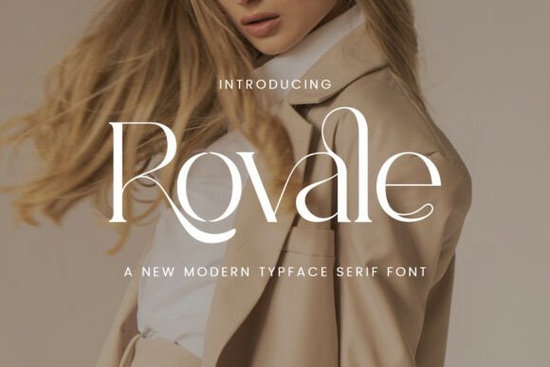
Typography often determines whether a project feels accessible or exclusive. Designers frequently seek a typeface that balances readability with an air of authority. In the current landscape of digital and print design, there is a distinct preference for letterforms that carry history but speak to today's standards. A great example of this intersection is Rovale Font. This modern serif combines elegant curves with refined contrast, making it ideal for visuals that need a high-end editorial mood.
Why Choose a Modern Serif for Your Brand?
Selecting the right typeface goes beyond mere appearance; it sets the tone for how customers perceive a business. A modern serif bridges the gap between traditional book typography and contemporary fashion-forward aesthetics. Unlike purely display fonts, Rovale maintains legibility even at smaller sizes, which is crucial for detailed work like website captions or price tags. The graceful ligatures contribute to a premium feel without sacrificing clarity.
When working on luxury marketing assets, consistency is key. Because this font marries classic beauty with a fresh perspective, it avoids looking dated too quickly. This longevity is valuable for small businesses aiming to build a long-term identity. While some scripts offer charm, they lack the stability required for strong corporate messaging. Serifs provide that backbone, grounding the design while still allowing room for artistic expression.
Best Applications for Editorial and Print Projects
The versatility of a high-quality typeface allows it to span various mediums. You can use it effectively in logo creation for boutique stores that want to communicate quality immediately. The fine lines work well in black and white printing environments, ensuring sharpness on both t-shirts and paper goods. Furthermore, it excels in magazine layouts where large headlines need to grab attention without being overwhelming.
Social media marketing also benefits significantly from this aesthetic. Platforms like Instagram and Pinterest rely heavily on visual appeal, and a sophisticated headline can stop a scroll faster than plain text. Whether you are promoting a limited-edition run or a new service line, the font adds a layer of professionalism that generic templates often miss. It spins magic on social media, packaging, and luxury marketing assets.
For wedding professionals, invitations require a blend of romance and formality. This typeface straddles that line perfectly. The feminine persona ensures the invite feels personal and delicate, while the structure ensures that dates and locations are easy to read at a glance. Many vendors prefer this because it photographs beautifully on flat lays and video backgrounds alike.
Technical Details and User Experience
Designers need to know that the software compatibility is solid. Most vector-based tools support the character set required for multilingual campaigns. The inclusion of specialized glyphs means you can create custom wordmarks rather than relying on standard keyboard inputs. Every letterform has been carefully constructed to evoke a captivating experience.